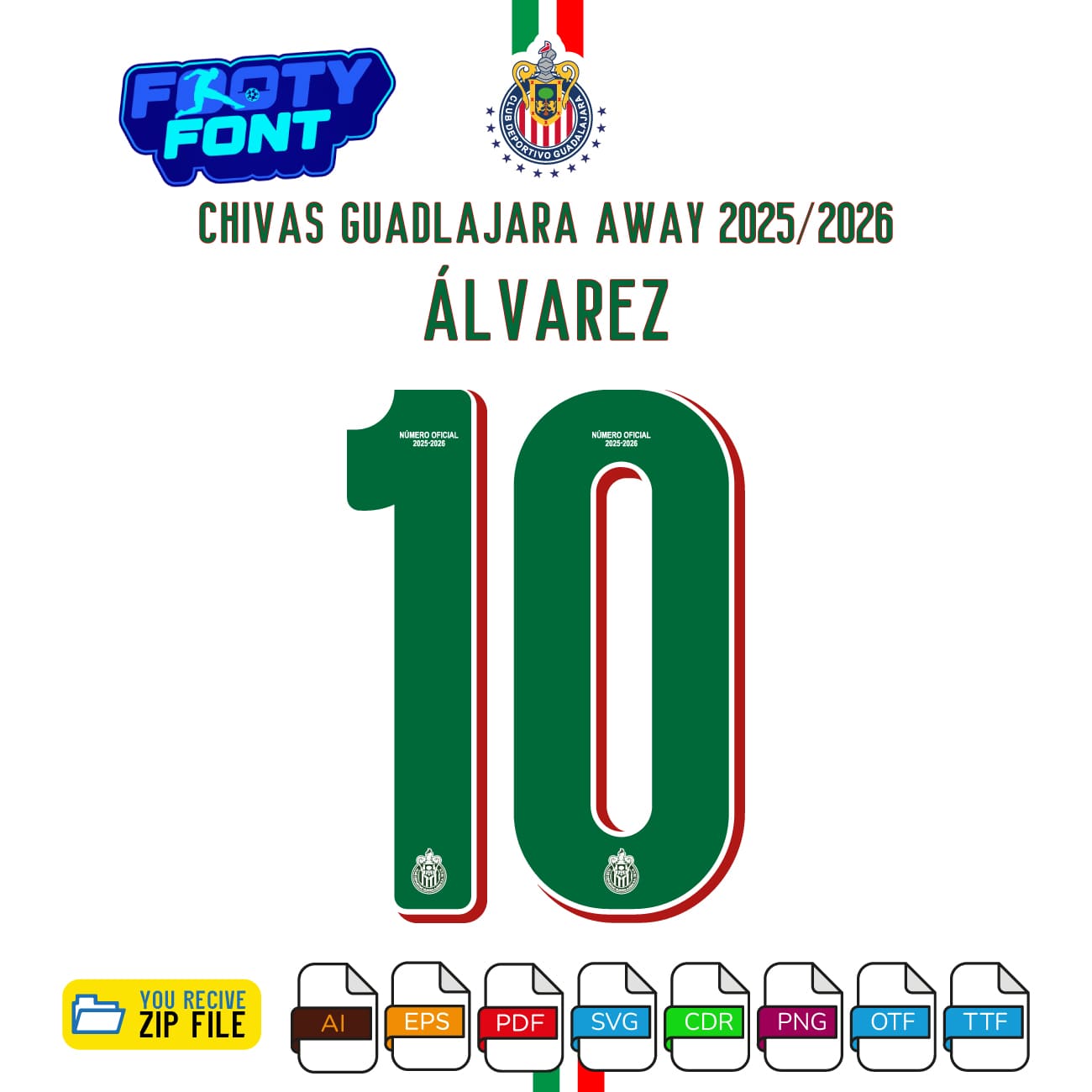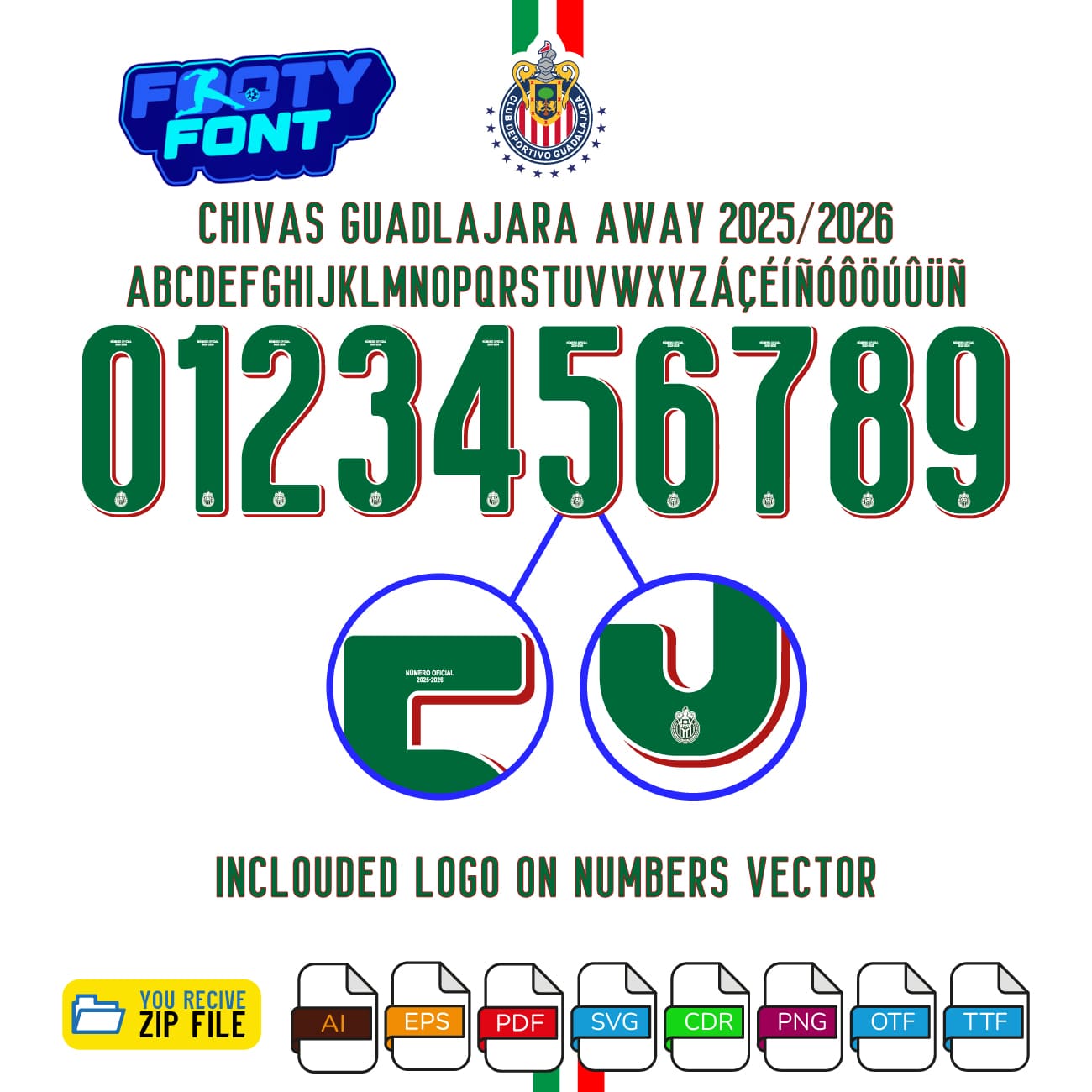
About the Chivas Guadalajara 2025-2026 Football Font
Capture the passion of El Rebaño Sagrado (The Sacred Herd) with this font, inspired by the C.D. Guadalajara 2025-2026 away kit. This is a high-quality typeface designed to replicate the look of the iconic Rojiblancos jersey worn by the team.
This font captures the style worn by the stars at the Estadio Akron like captain Víctor “Pocho” Guzmán, Roberto “Piojo” Alvarado, and the legendary Javier “Chicharito” Hernández. It’s perfect for fans creating their own custom jersey designs for personal use, digital posters, or any other project that shows your support for Chivas.